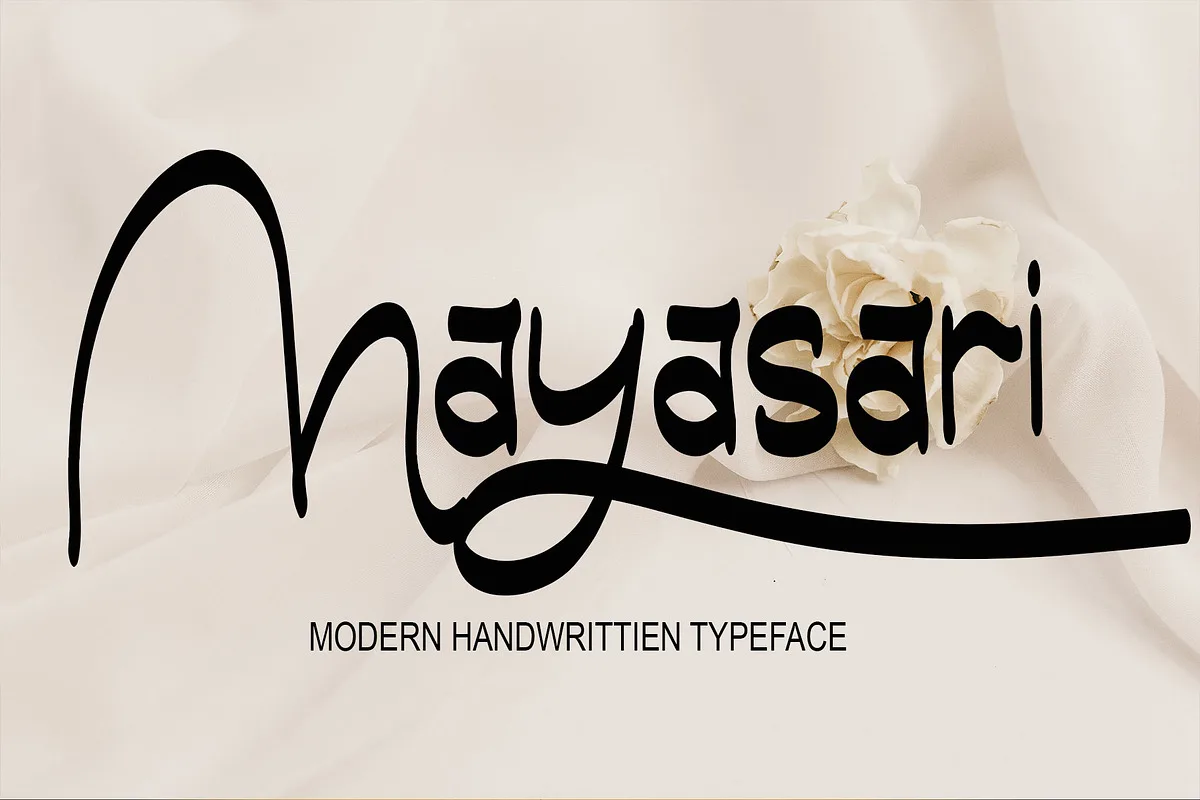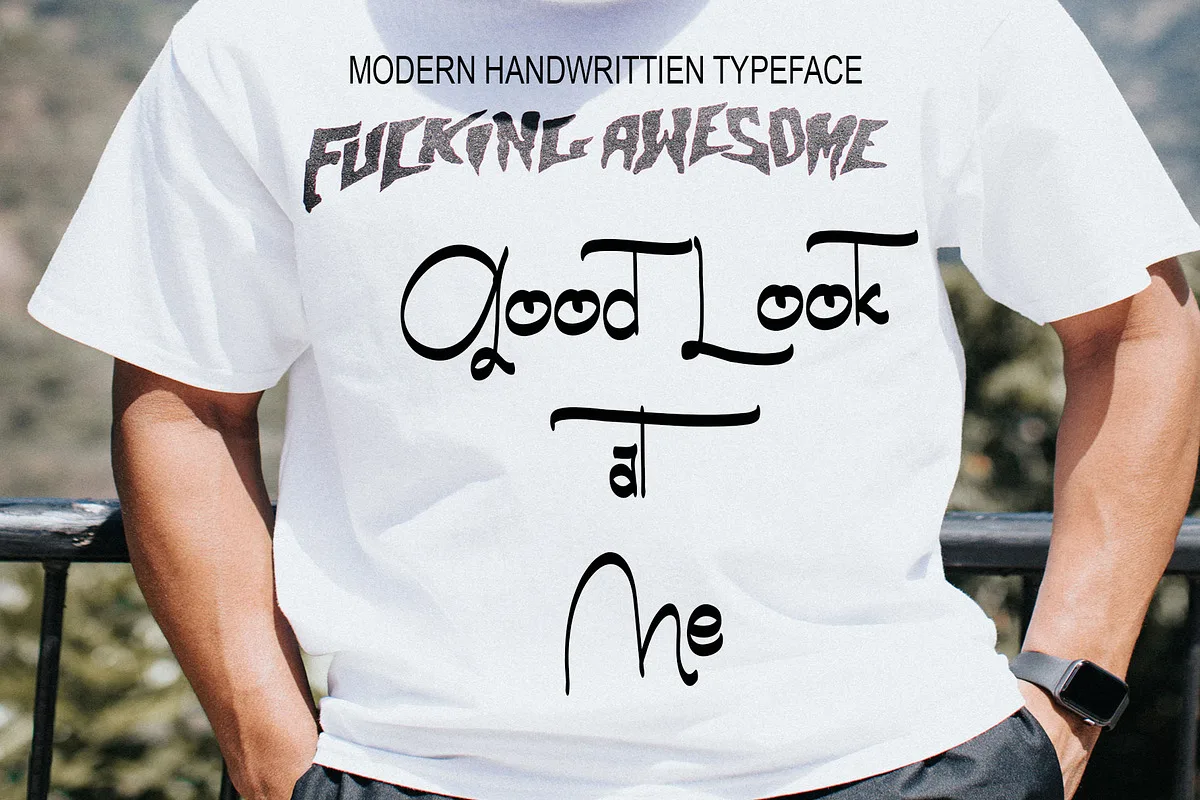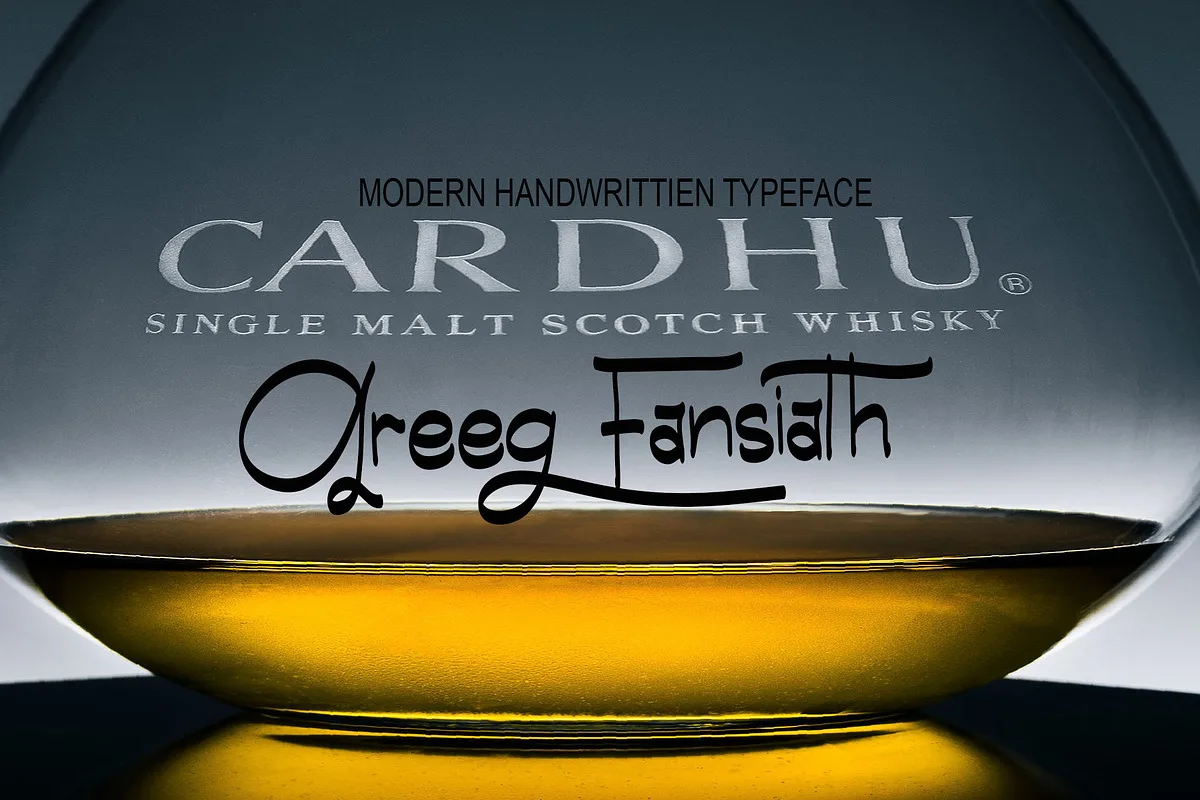
Digimon is a beautiful handwritten font. Even though it looks simple, this font still looks cool and stylish. It is perfect for logos, branding, wedding invitations, business cards, greeting cards, posters, magazines, social media, proliferate fonts, planner prints and websites.